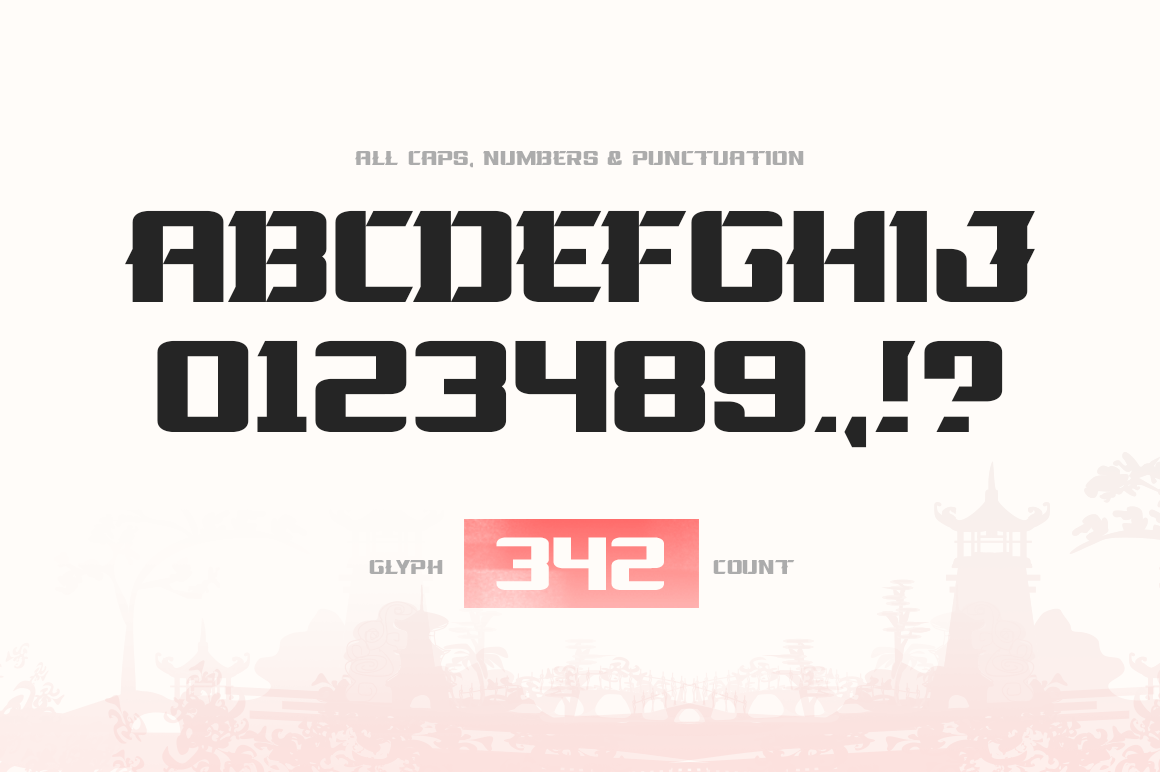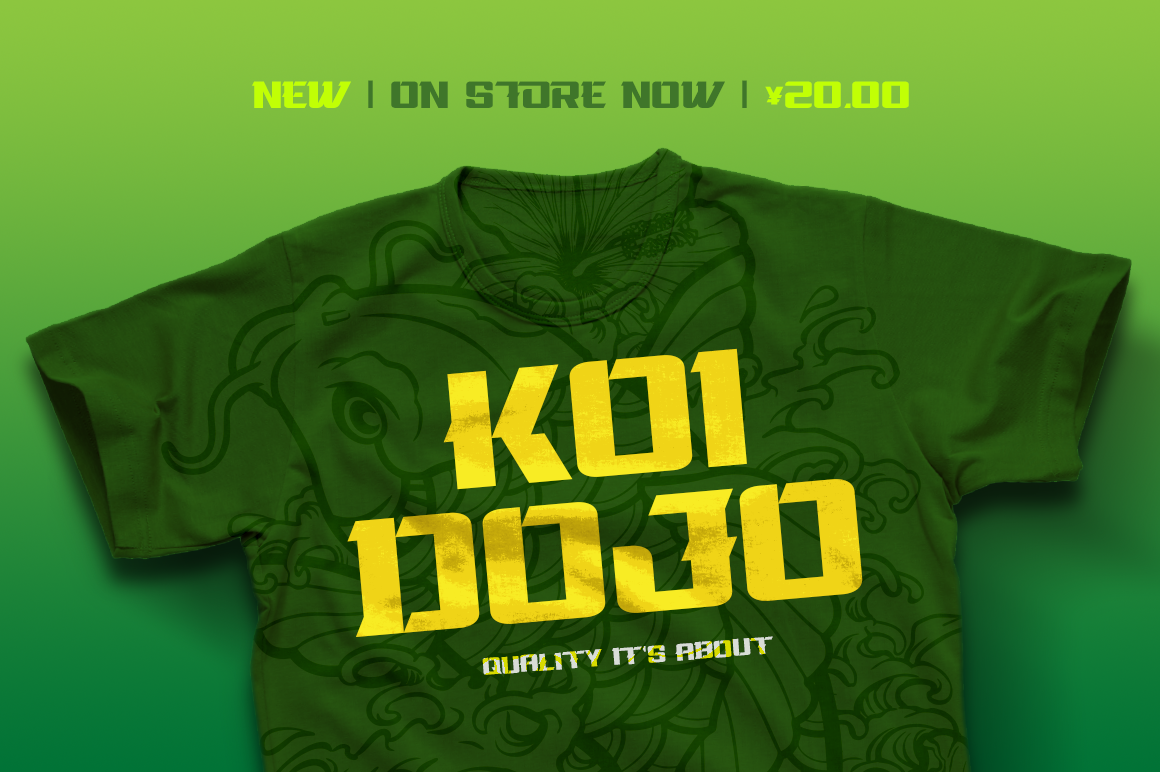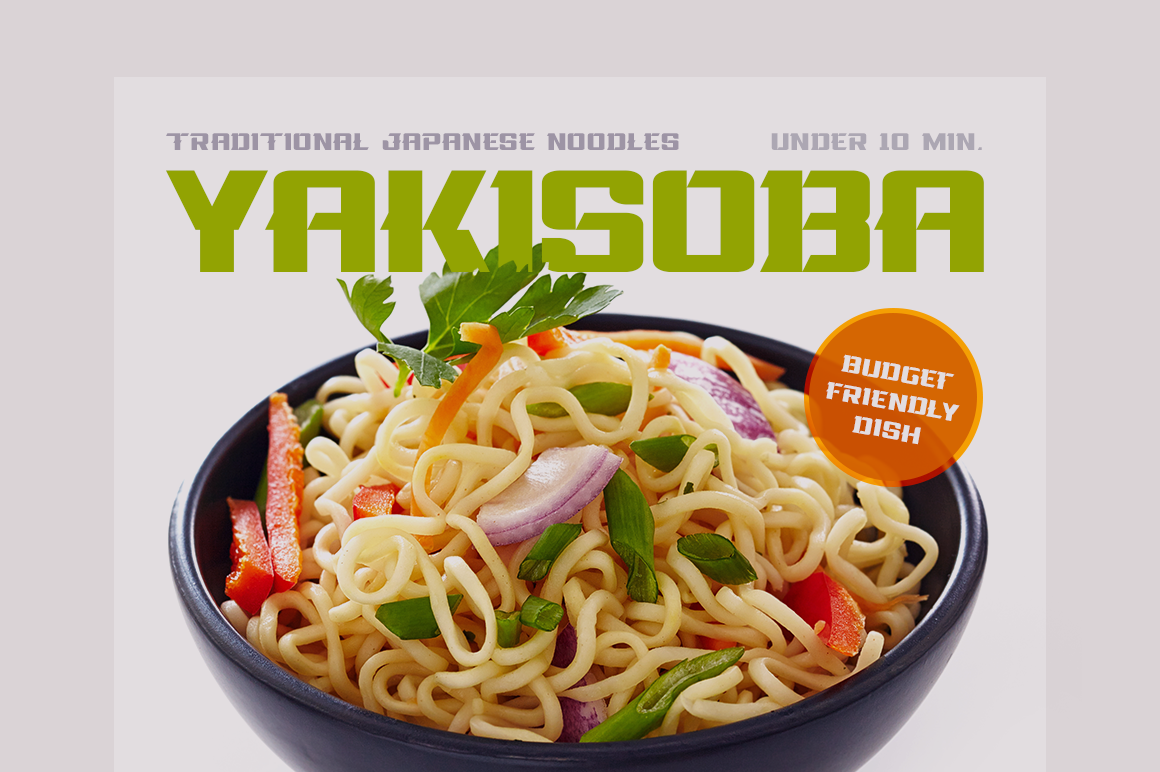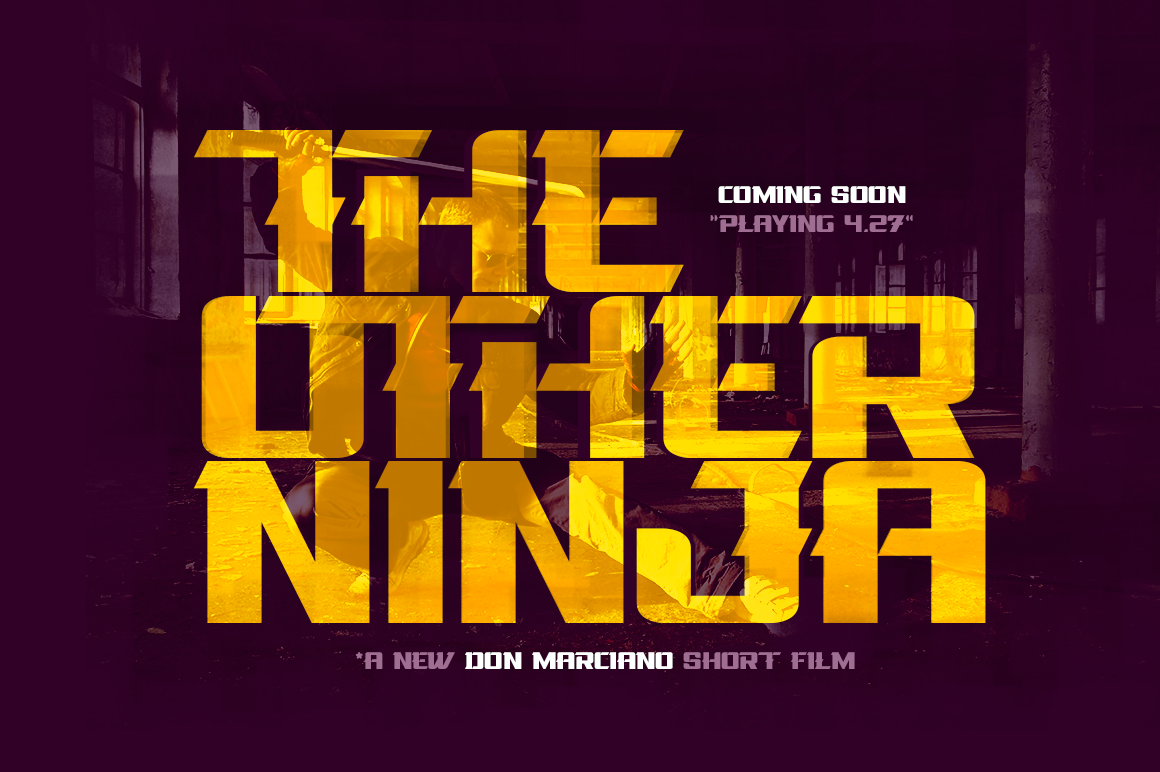
La Oriental is a strong bold font designed by Don Marciano from San Salvador. The OTF file comes with more than 340 glyphs, all caps, some ligatures all numbers and punctuation. Perfect choice for all sorts of printed products -food packages, stationery, labels, prints, posters, T-shirts, quotes, etc. Free for personal and commercial use!